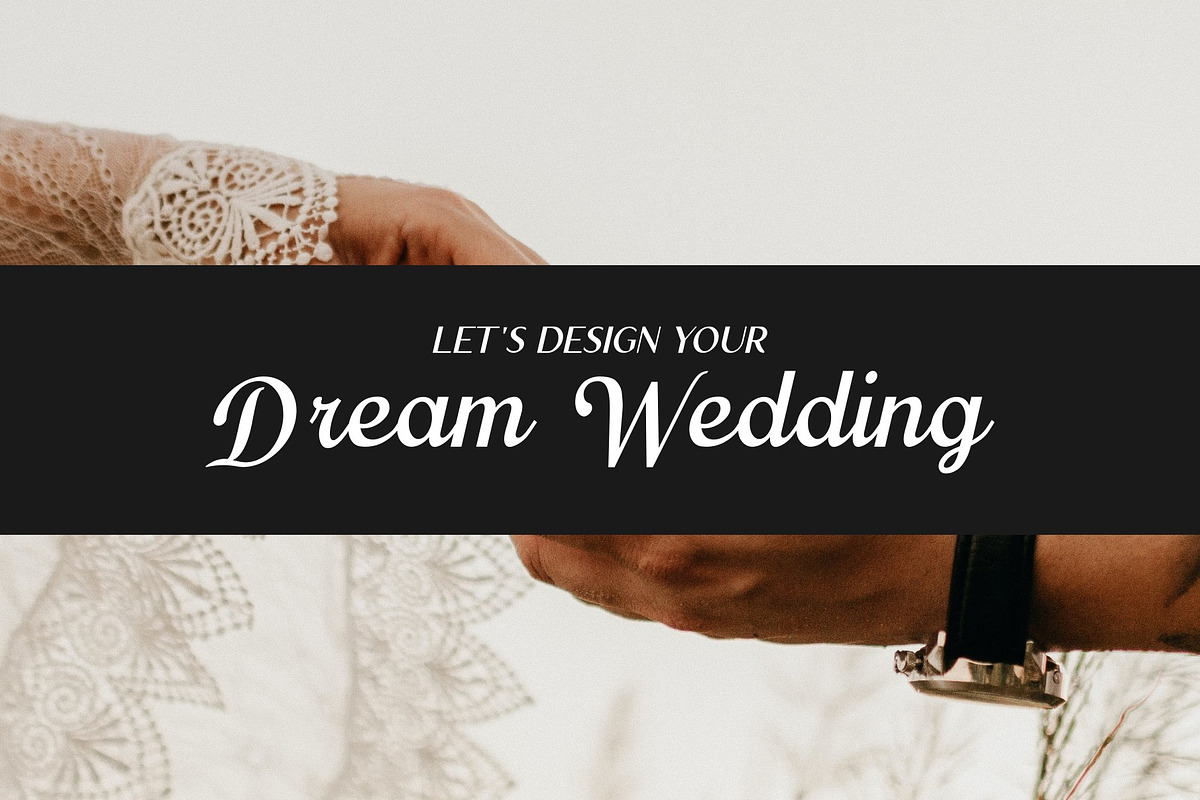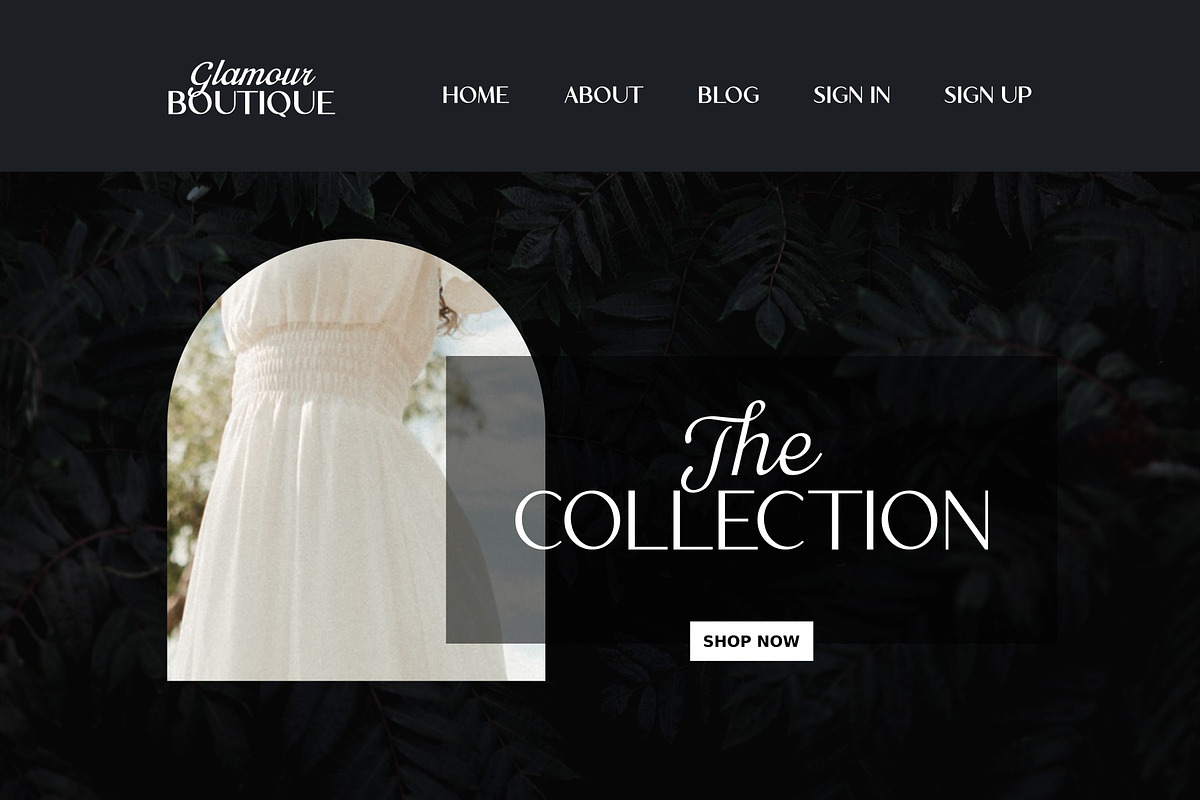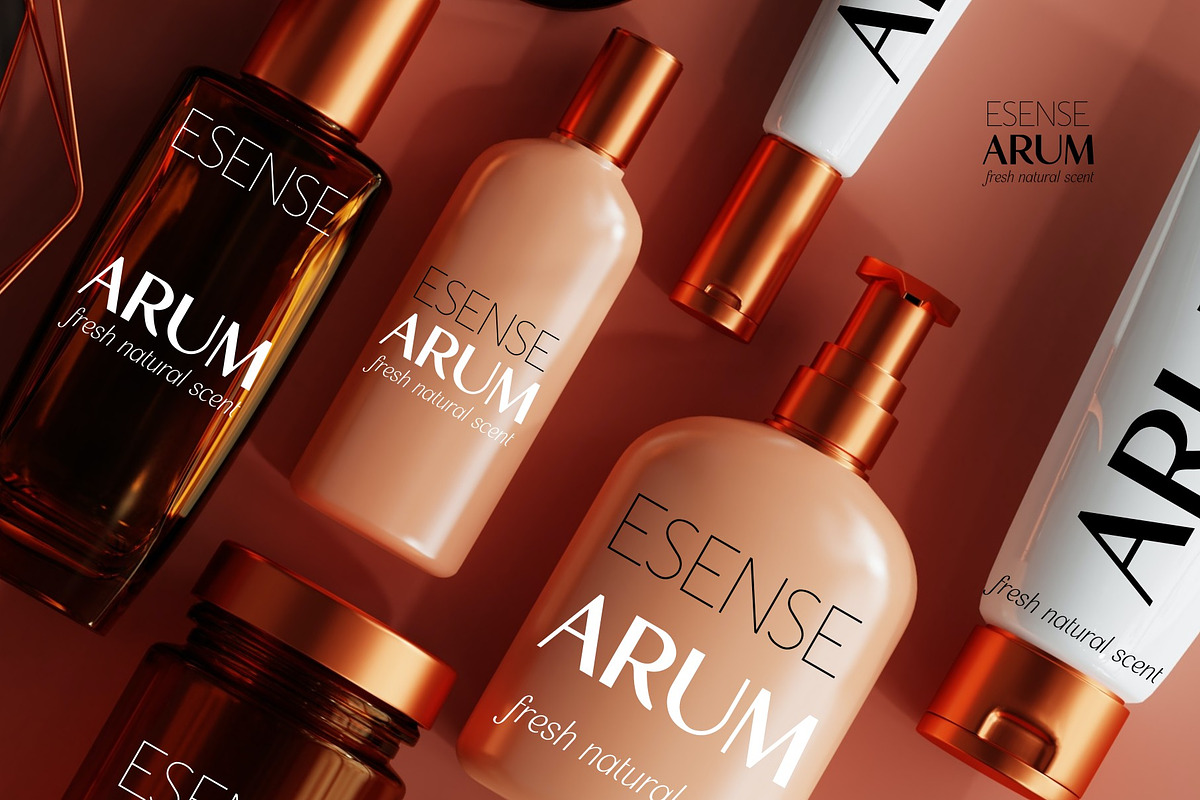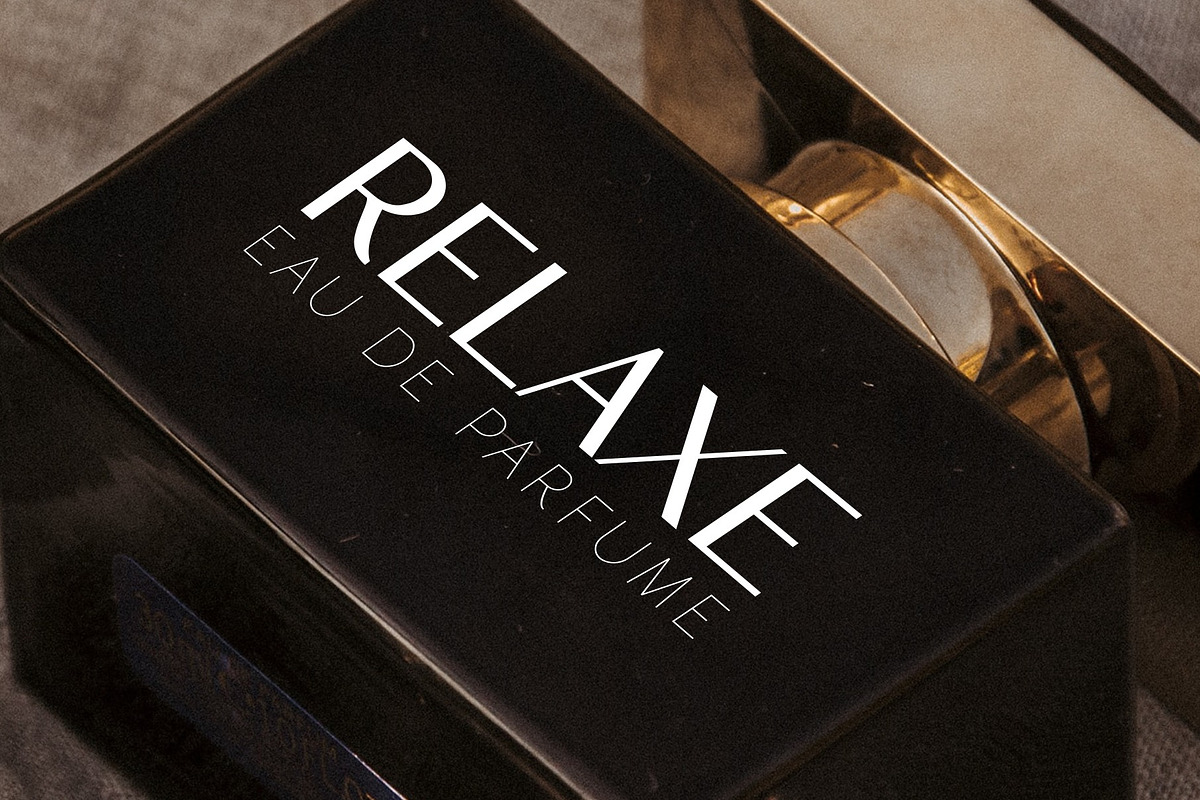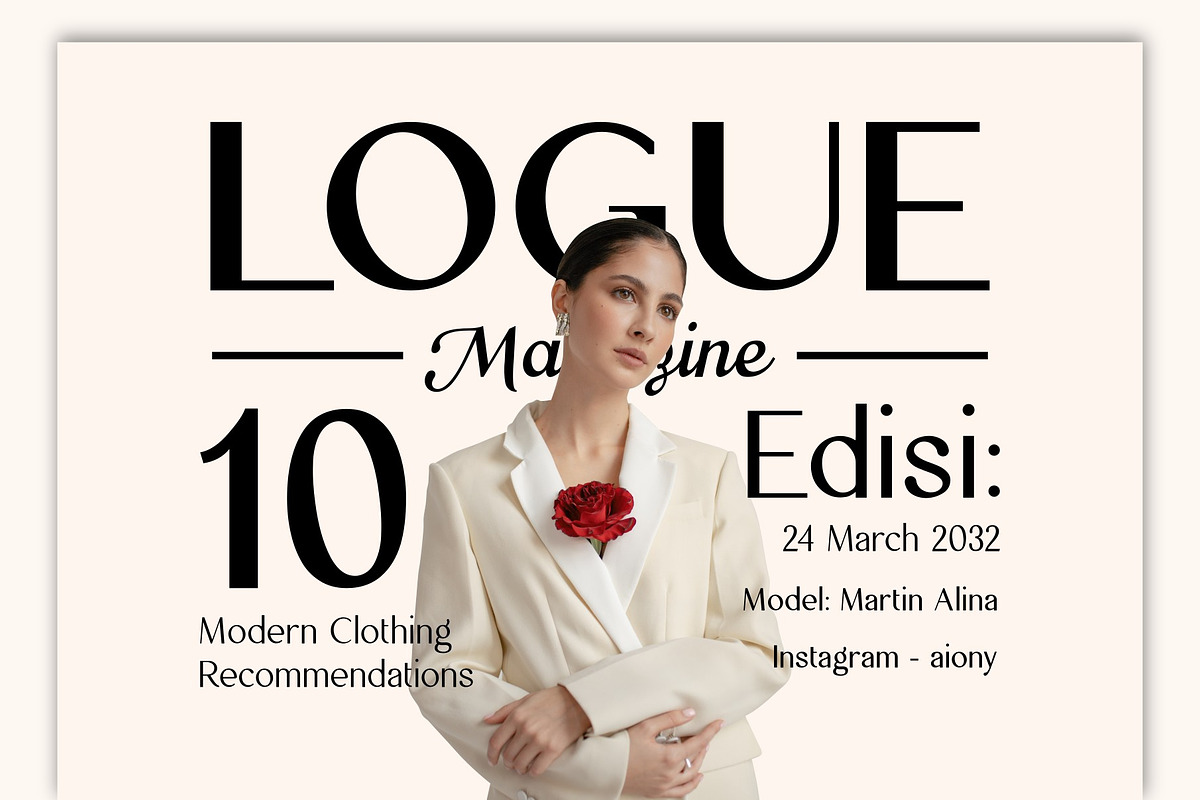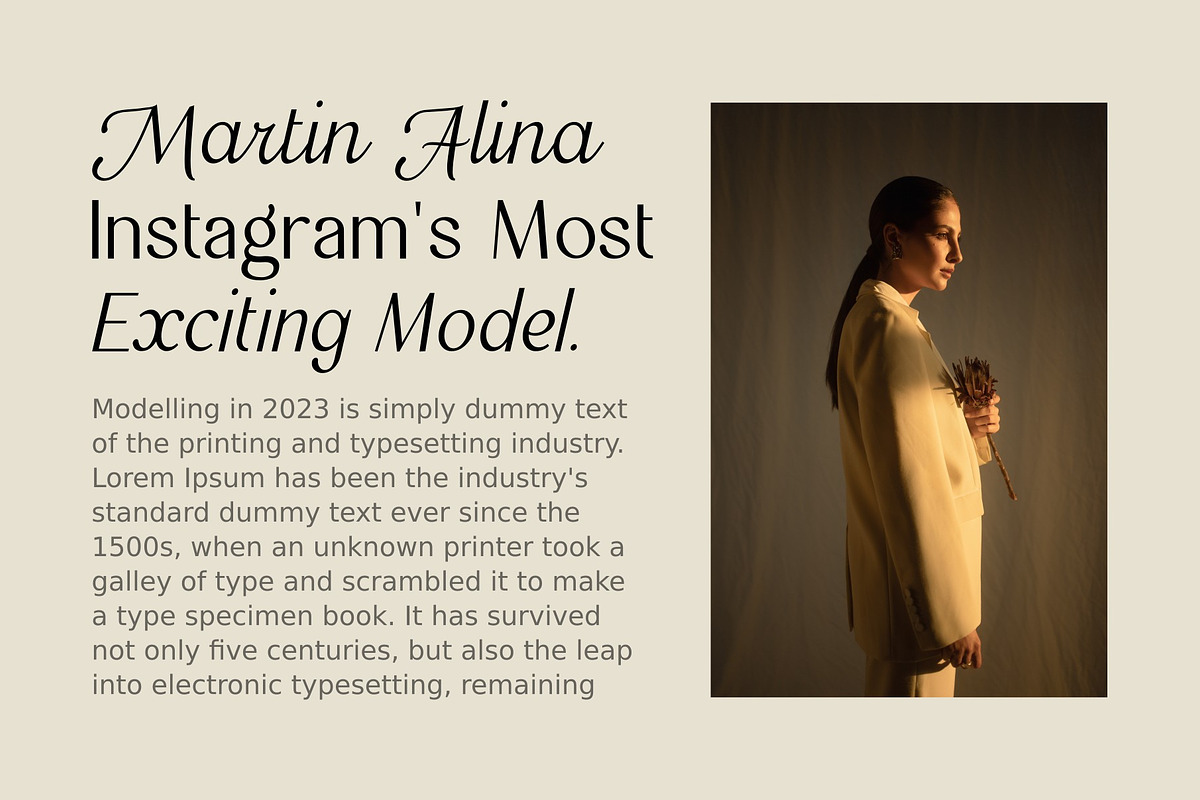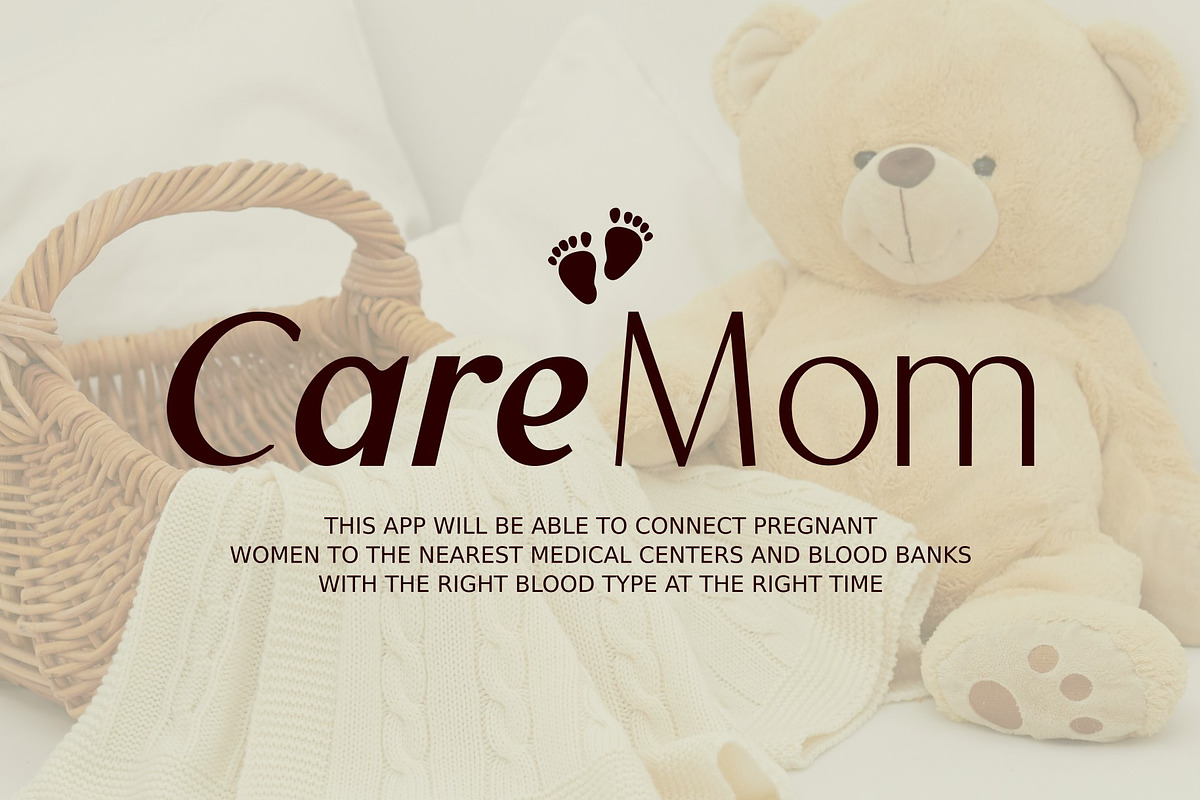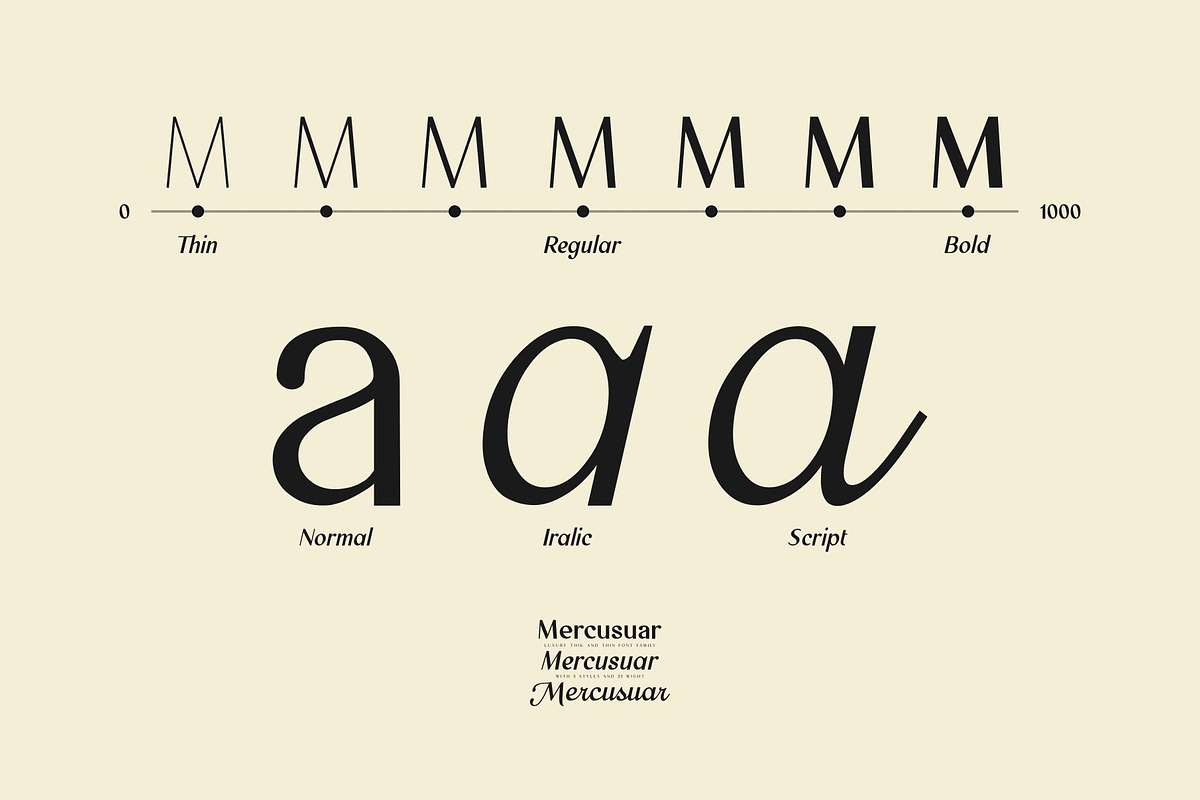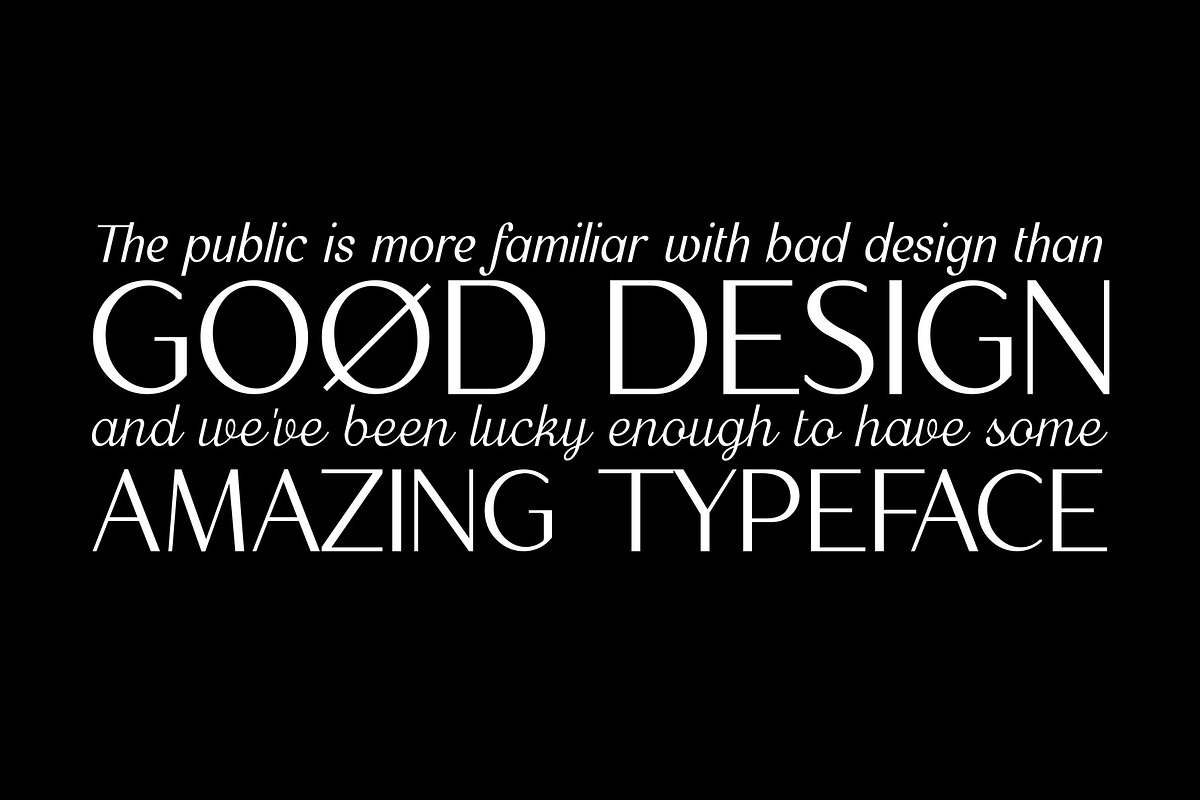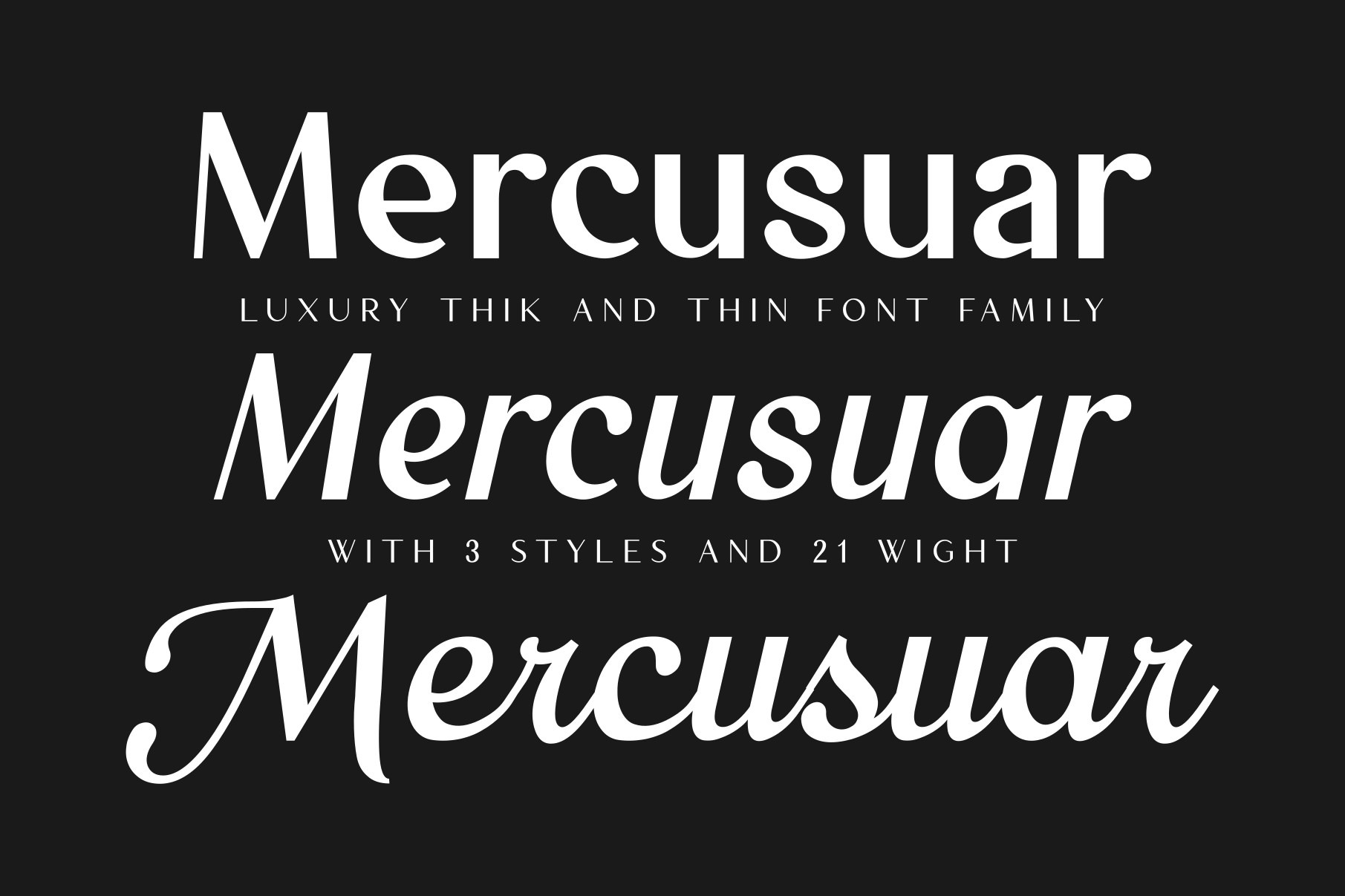
Mercusuar - Luxury Font Family
Mercusuar is a luxurious and balanced sans-serif font that exudes elegance and sophistication. With its clean lines and harmonious proportions, Mercusuar adds a touch of refinement to any design project. Perfect for high-end branding, editorial design, and advertising, Mercusuar is the perfect choice for creating a luxurious and polished look. Keep in mind that the font is PUA encoded, meaning that you can access all delightful glyphs and swashes effortlessly.
Mercusuar font FAMILY – includes 3 styles (Normal, Current Italic, Script) and 21 weights (Thin, Extralight, Light, Regular, Medium, SemiBold, Bold) :